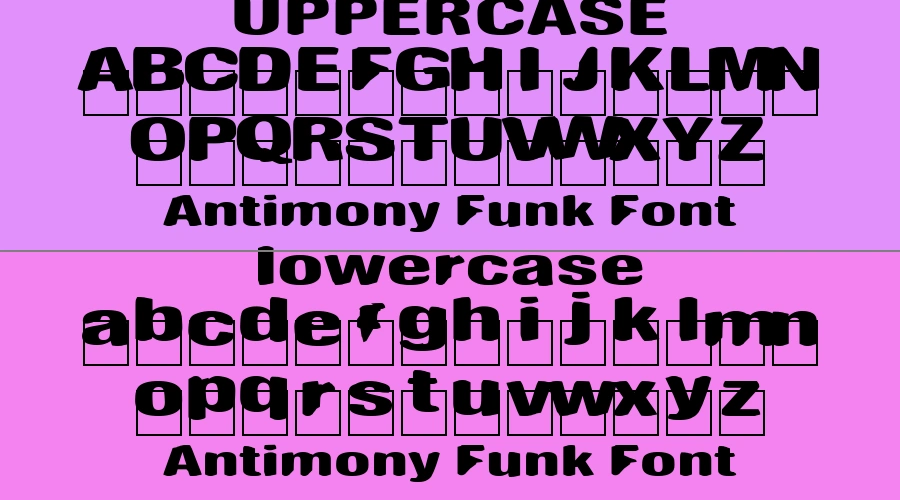
About Antimony Funk Font
Antimony Funk Font stands out for its distinctive combination of elegant proportions and signature style. Ideal for motion graphics, it provides the consistency and professional standards that professional projects demand. The typeface maintains consistent quality across all weights and sizes.
Key features include refined ball terminals and practical pi characters, enhancing typographic expression. In technical diagrams applications, Antimony Funk Font demonstrates exceptional small cap rendering. The descender depth and character contribute to its distinctive character and professional appeal.